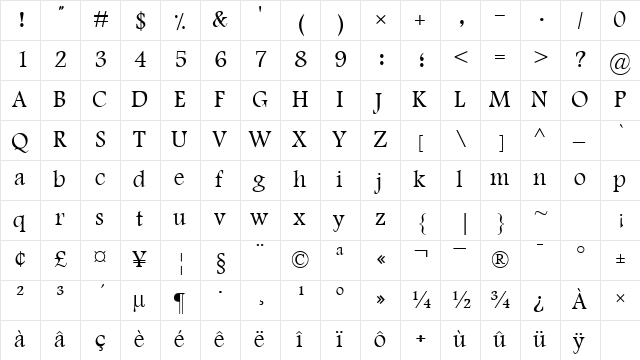
MEDYA-Zar Bold
| Foundry | MEDYA SOFT |
| Designer | Saeed Mirzaei Niya |
Design Context for MEDYA-Zar Typeface
MEDYA-Zar takes a measured approach to typography — its balanced proportions and neutral character make it a reliable workhorse for both digital and print work. Its bold stroke weight gives it real presence on the page.